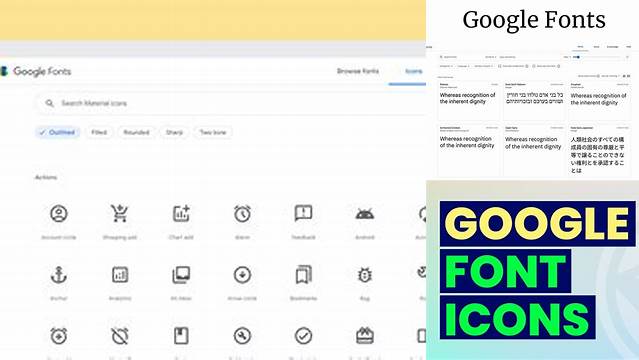
Google Fonts Icons: A Comprehensive Guide
Google Fonts Icons, a treasure trove for web developers and designers, offer a vast collection of free, open-source icons that can breathe life into your digital projects. These icons, readily accessible through the Google Fonts library, eliminate the need for cumbersome image files, ensuring faster loading times and a cleaner, more scalable design. But how do you harness the power of these icons effectively? Let's dive into the world of Google Fonts Icons, exploring their benefits, implementation methods, and best practices.
What are Google Fonts Icons?
Google Fonts Icons are a set of pictorial symbols designed to enhance user interfaces and visual communication on the web. Unlike traditional image-based icons, Google Fonts Icons are rendered as vectors, meaning they scale seamlessly without any loss of quality. This makes them ideal for responsive designs that adapt to various screen sizes and resolutions. These icons are available under the Apache 2.0 license, allowing you to use them freely in both personal and commercial projects. The Google Fonts Icons library boasts a diverse range of icons, covering various categories like navigation, social media, file types, and more. This comprehensive collection ensures you'll likely find the perfect icon to represent your desired action or concept.
Benefits of Using Google Fonts Icons
Using Google Fonts Icons offers a multitude of advantages over traditional icon formats:
- Scalability: Vector-based icons scale perfectly without pixelation, ensuring a crisp and clean appearance on any device.
- Performance: Icons are delivered as a font, reducing HTTP requests and improving page load times compared to image-based icons.
- Customization: Icons can be easily styled using CSS, allowing you to change their size, color, and even add effects like shadows and gradients.
- Accessibility: Google Fonts Icons can be made accessible to screen readers by using appropriate ARIA attributes.
- Free and Open-Source: The icons are free to use and distribute, making them a cost-effective solution for any project.
- Easy Implementation: Integrating Google Fonts Icons into your website is a breeze, thanks to the readily available CSS and HTML snippets.
How to Use Google Fonts Icons
Integrating Google Fonts Icons into your web project is a straightforward process. There are primarily two methods you can employ:
1. Using the Google Fonts CSS API
This is the simplest and most common method. It involves linking the Google Fonts stylesheet to your HTML document and then using CSS classes to display the desired icons.
This line of code tells the browser to fetch the Material Icons font (which is a popular set of Google Fonts Icons) from the Google Fonts API.
Now, you can use the material-icons class along with the specific icon name to display the icon. The icon names are usually descriptive and easy to remember. For example, to display a home icon, you would use the following HTML:
The <i> tag is a common choice for displaying icons, but you can also use other semantic elements like <span>. The important part is the material-icons class, which tells the browser to use the Material Icons font, and the text content within the tag, which specifies the icon to display.
Example:
Let's say you want to add a menu icon and a search icon to your navigation bar. Your HTML might look like this:
<li><a href="#"><i class="material-icons">search</i> Search</a></li>
</ul>
</nav>
This code will display a menu icon and a search icon next to the corresponding text links.
2. Using npm or Yarn
If you're using a JavaScript package manager like npm or Yarn, you can install the Material Icons font as a dependency. This approach gives you more control over the font files and allows you to bundle them with your application.
Step 1: Install the Package
Open your terminal and navigate to your project directory. Then, run the following command:
npm install @mdi/font
Or, if you're using Yarn:
yarn add @mdi/font
This command will install the Material Design Icons font (another popular icon set) as a dependency in your project.
Step 2: Import the Stylesheet
In your main CSS file (e.g., style.css or app.css), import the Material Design Icons stylesheet:
@import '~@mdi/font/css/materialdesignicons.min.css';
This line imports the CSS file that defines the styles for the Material Design Icons.
Step 3: Use the Icon Classes
Similar to the Google Fonts API method, you can now use the icon classes to display the icons. The class names for Material Design Icons usually start with mdi-. For example, to display a home icon, you would use the following HTML:
<i class="mdi mdi-home"></i>
Example:
To add a settings icon and a user icon, your HTML might look like this:
Conclusion: Mastering Google Fonts Icons for Web Design Excellence
Google Fonts Icons are an indispensable tool for modern web designers. Their versatility, efficiency, and ease of use make them a must-have in any web development toolkit. By understanding the nuances of their implementation, styling, and troubleshooting, you can harness their power to create visually appealing and user-friendly websites. Remember to follow best practices, explore different icon sets, and address common issues proactively. With a little practice and attention to detail, you'll be creating stunning web designs with Google Fonts Icons in no time. So, keep experimenting, guys, and let your creativity shine! This is just the beginning of your journey with web design mastery!